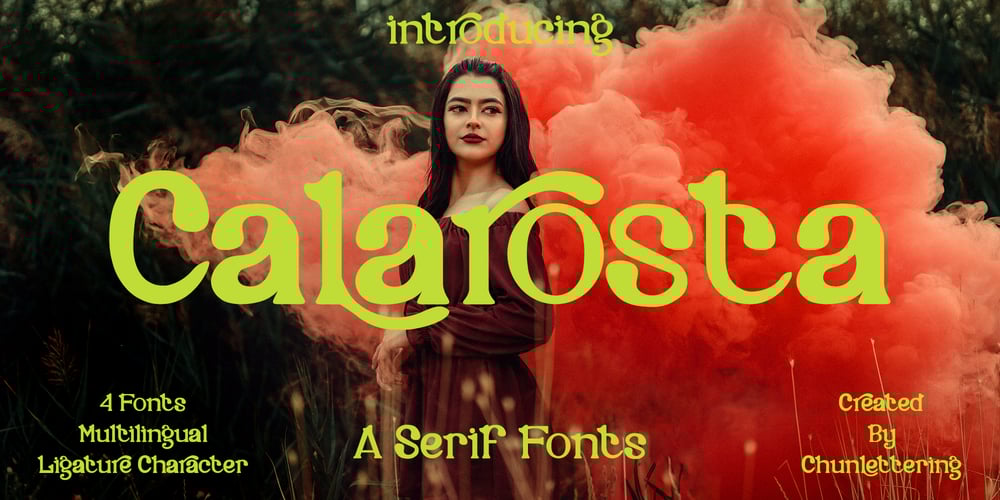
Calarosta Font Family was designed by Imron Rosyidi and published by Chunlettering. Calarosta contains 4 styles and family package options. Calarosta – is a versatile unique, beautiful and clean serif font family, created with precision in each glyphs character.This font is perfect for logo branding, product designs, quotes, posters, display, website, invitation card, greeting card, headline, website, magazine, and your various other design projects with an outstanding style.Calarosta includes 4 weight styles which each include 225 glyphs.Features: 4 Font Weight Uppercase & Lowercase Multilingual Support Number & Punctuation Alternatives & Ligatures Thank you, for supporting us.